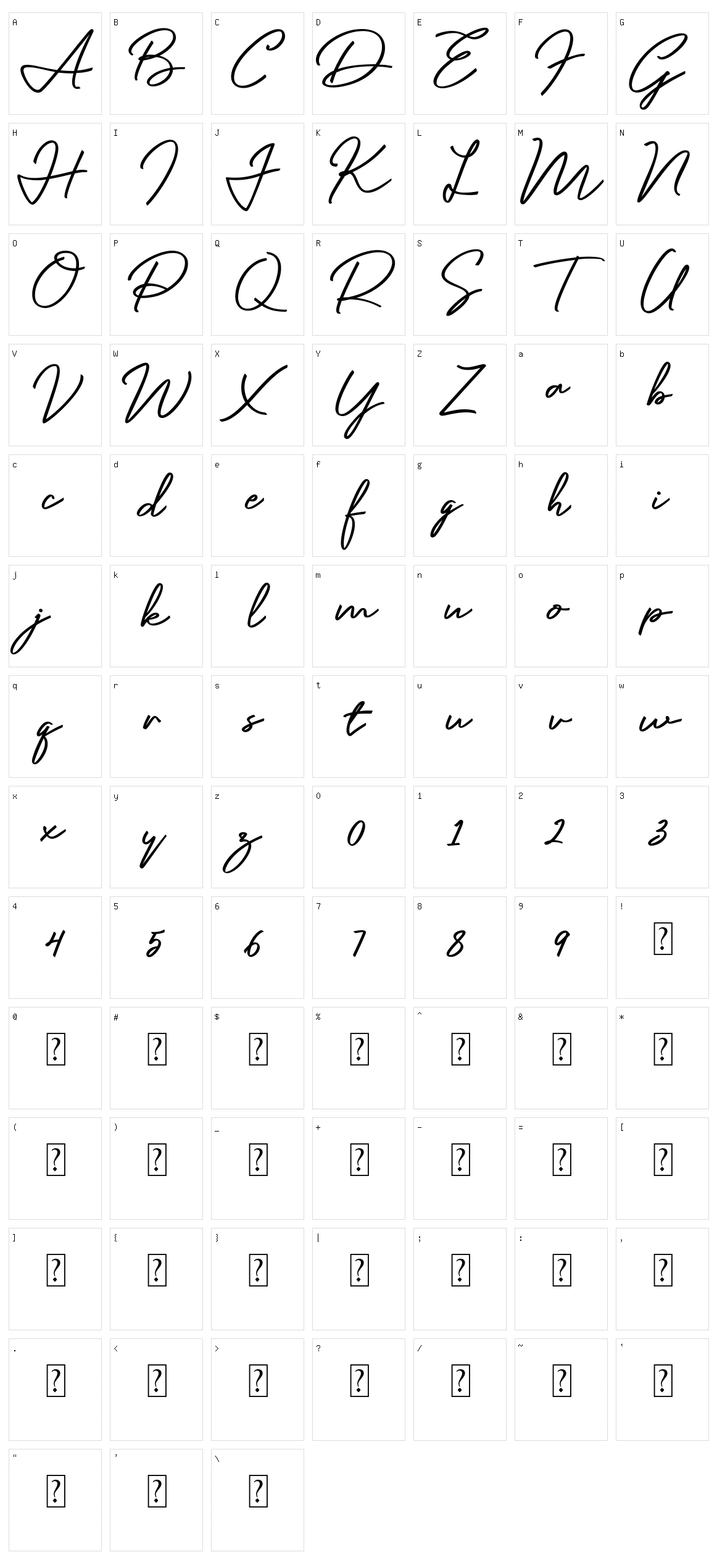
The free font Mentawai is carefully designed by www.movefont .com, showcasing a thoughtful balance of creativity and usability and falls under the Script font style. When you download the ZIP file, it contains only 21.34 KB of font files, making it lightweight and quick to download. Please review the license details below to understand permitted usage and distribution rights. If license information is not available, we recommend using this font for personal projects only or contacting the author directly for commercial usage permissions.